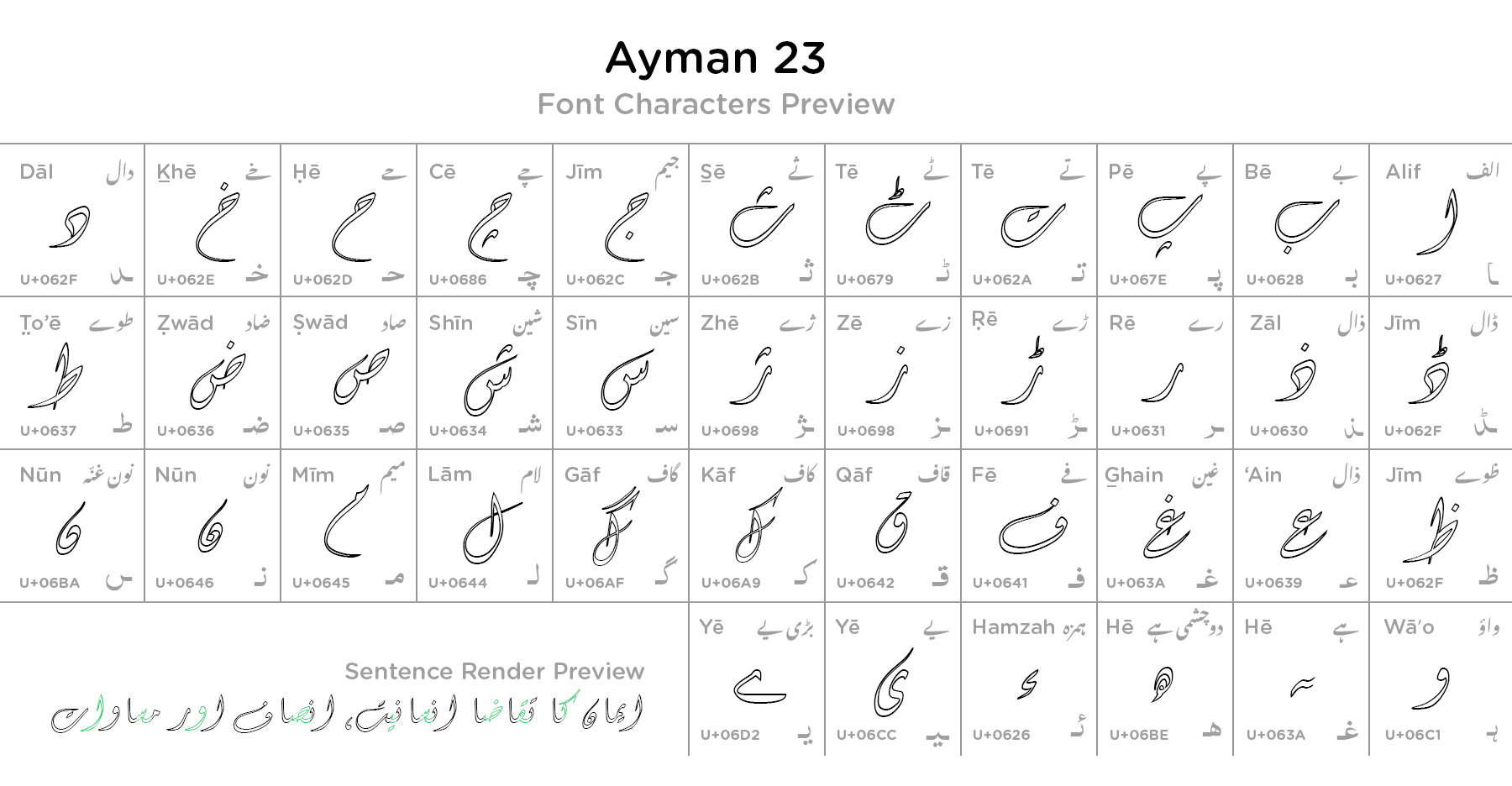
Ayman 23 is an elegant and stylish Arabic font. It has a calligraphic and artistic look. The font is written in a slightly italicized style that gives it a decorative feel. All the letters are interconnected, maintaining the traditional Arabic script appearance. Ayman 23 has well-defined loops and curves that gives it a mixed look of traditional and modern calligraphy. The strokes are thin but detailed. Curves are dominating the design. You can clearly see the hollow structure of this font. This gives an airy feel and makes the font look less dense and more graceful. This True Type font has a consistent thin-to-medium thickness. Ayman 23 is perfect for posters, logos, wedding invitations, Arabic literature or poetry books, and artistic designs where a unique Arabic script is needed. So, its thin, airy strokes, refined curves, and artistic touch make it suitable for different creative and formal projects.